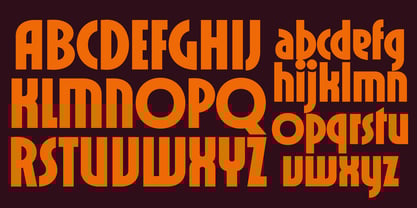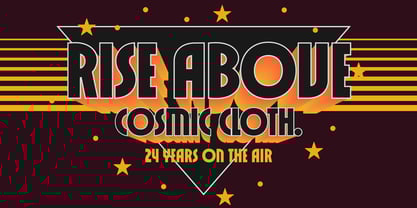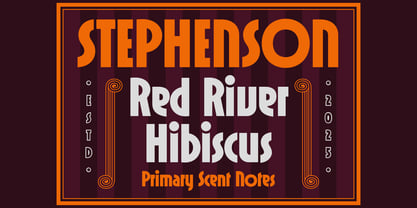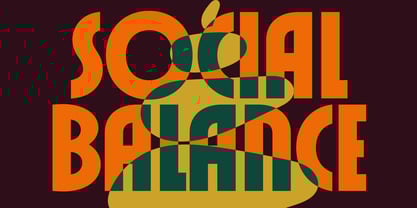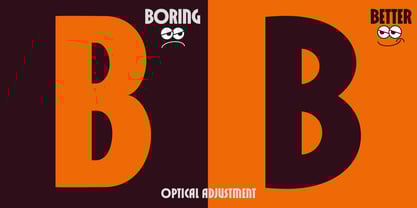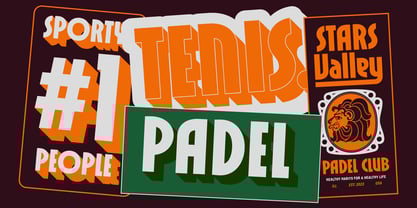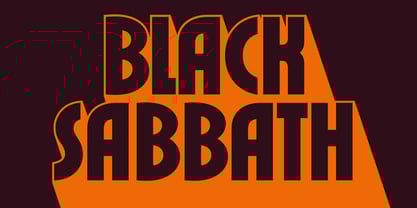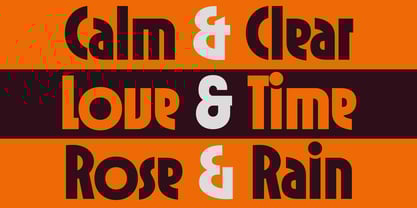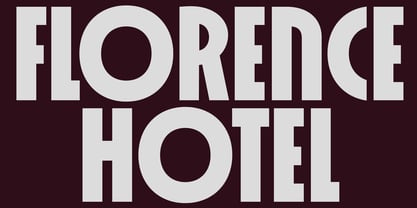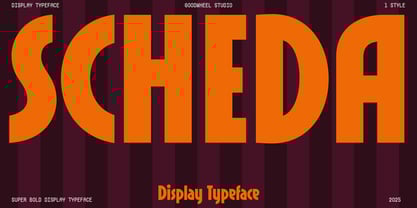
GW Scheda
by Goodwheel Studio
The GW Scheda Font Family was designed by Ilham Herry, Akbar Gumelar and published by Goodwheel Studio. GW Scheda contains 1 styles.
Scheda is a super bold display typeface designed to command attention through its powerful form and geometric balance. Its letterforms are broad, confident, and rhythmically structured each curve and corner crafted to stand out with intention. Perfect for headlines, logos, packaging, or large-scale visuals, Scheda thrives wherever strong visual presence is needed. Its solid shapes and tight spacing create an energetic visual impact, giving every word a sense of motion and weight.
Designers: Ilham Herry, Akbar Gumelar
Publisher: Goodwheel Studio
Foundry: Goodwheel Studio
Design Owner: Goodwheel Studio